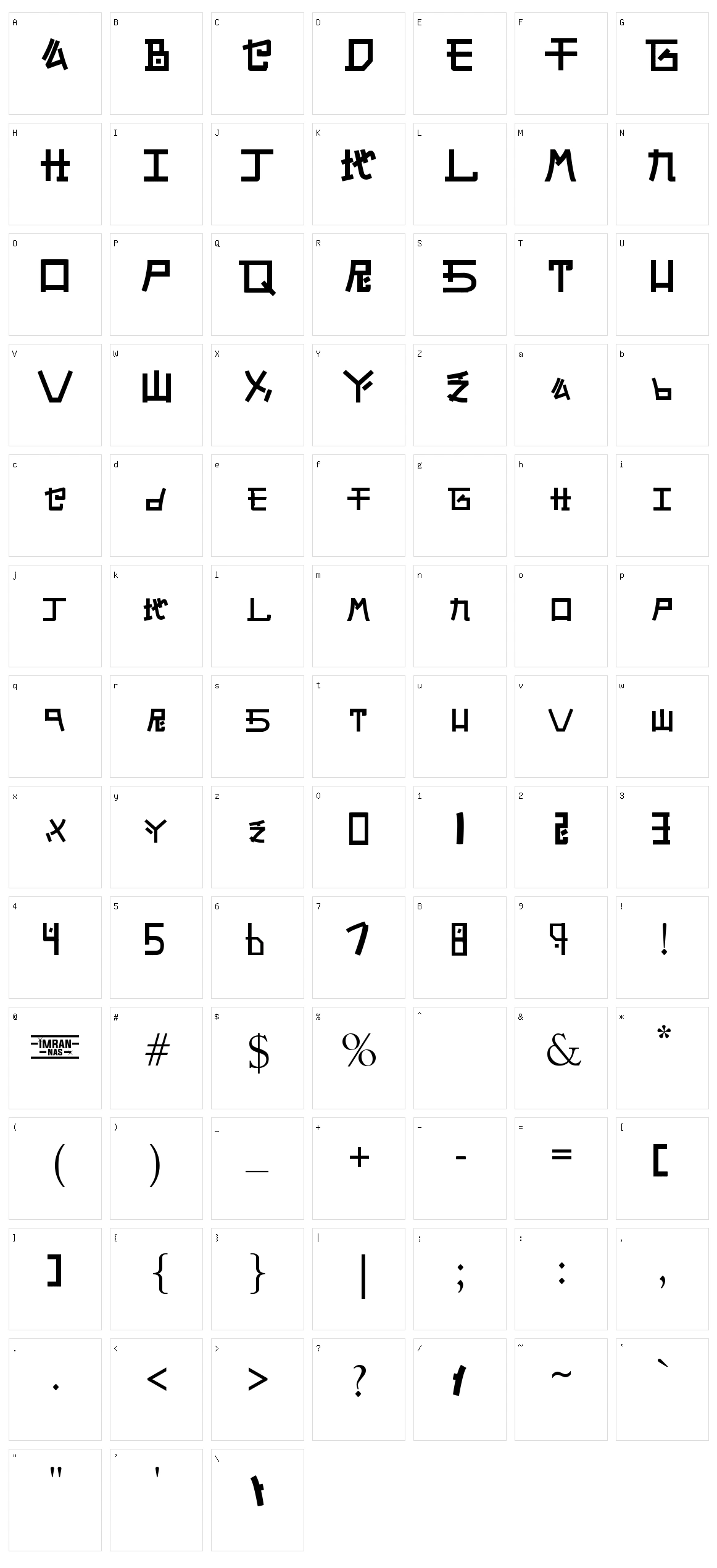
The free font Alphabet SNK by PMPEPS is carefully designed by Imran Nasution, showcasing a thoughtful balance of creativity and usability and falls under the Asian font style. When you download the ZIP file, it contains only 17.99 KB of font files, making it lightweight and quick to download. Please review the license details below to understand permitted usage and distribution rights. If license information is not available, we recommend using this font for personal projects only or contacting the author directly for commercial usage permissions.